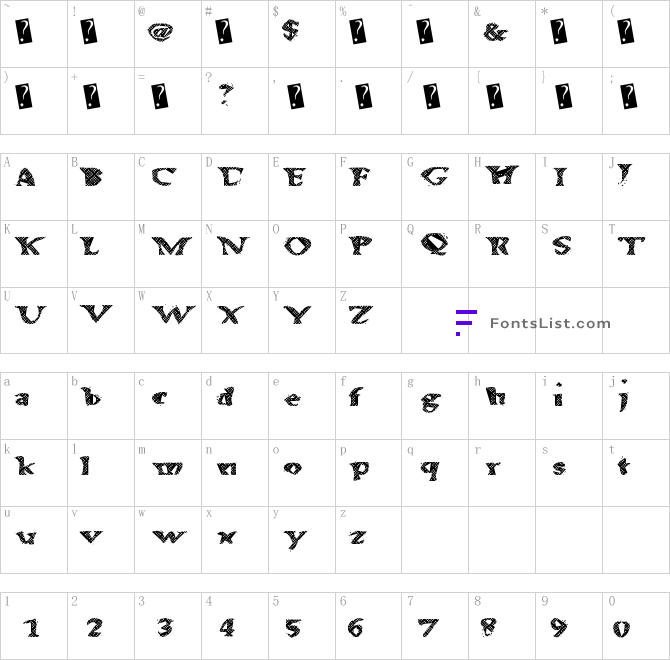
- Font Name:AlienWaffle
AlienWaffle.ttf is a very beautiful artistic font, AlienWaffle.ttf is widely used in the design and printing of various books and pictures,AlienWaffle.ttf has a strong visual impact,AlienWaffle.ttf is a commonly used font in newspapers, magazines and books, and is used in posters, e-commerce Poster design, store design, logo design, font design and other fields.AlienWaffle.